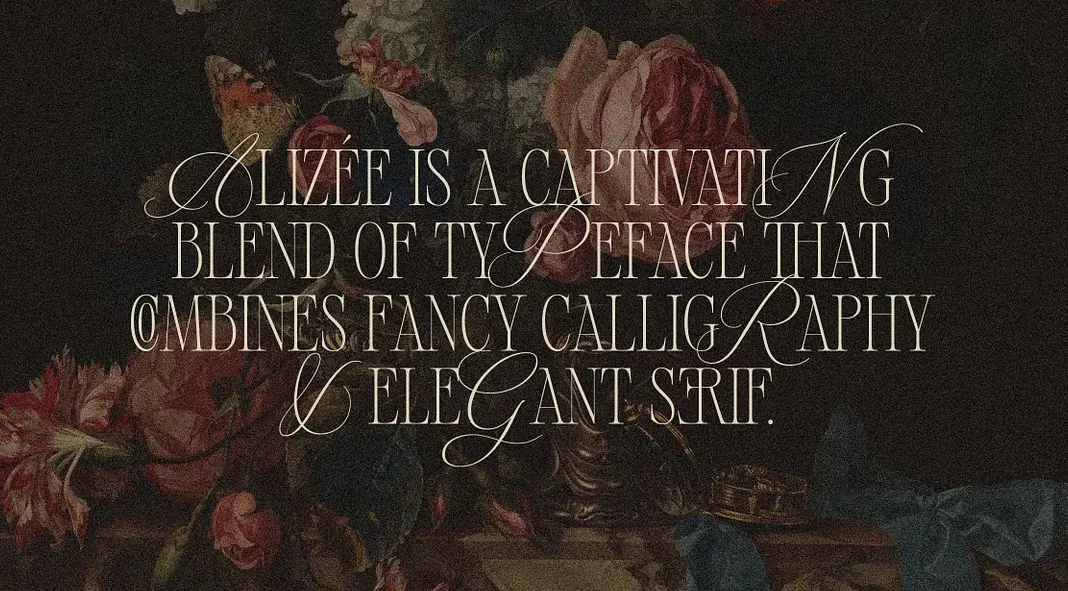
Designed and published by Harmonais Visual, the Alizée typeface is an elegant blend of calligraphy and serif design. This elegant hybrid typeface channels vintage aesthetics with a modern twist, making it an outstanding choice for designers seeking sophistication and versatility. With its striking fusion of classic and contemporary elements, Alizée brings a distinctive charm to branding, editorial layouts, and social media content.
A Perfect Balance of Style and Functionality
Alizée stands out for its duality—it marries the fluidity of calligraphic strokes with the structure of serif typography. This combination allows it to be both expressive and highly readable. Whether it’s used for elegant headlines, luxurious branding, or visually rich menus, the typeface adapts effortlessly to various creative contexts.
Three Unique Styles for Varied Applications
Alizée comes in three carefully curated styles: Regular, Petite, and Grande, each offering distinct visual dynamics:
- Regular: A classic serif style with timeless appeal, ideal for versatile applications.
- Petite: A unique pairing of calligraphic uppercase letters with serif lowercase, adding a refined yet playful touch to any design.
- Grande: This style combines calligraphic uppercase with uppercase serif letters, delivering bold and dramatic typography suitable for impactful statements.
These stylistic variations provide designers with a robust toolkit to achieve the desired tone, whether subtle or commanding.
Multilingual Support and Ligatures
One of Alizée’s notable strengths lies in its comprehensive language support. It accommodates European languages and Vietnamese, making it a versatile choice for global projects. Additionally, the typeface includes a wealth of ligatures—custom connected letters that enhance its elegance. These ligatures work seamlessly in OpenType-compatible software, such as Adobe Illustrator, where the Glyphs panel enables full creative control.
Technical Details and Usability
Applications: Elevating Design with Sophistication
The versatility of Alizée makes it ideal for numerous design projects:
- Branding: Its luxurious feel enhances logos, packaging, and identity systems.
- Editorial Design: Alizée’s sophisticated appearance elevates magazine layouts and book covers.
- Social Media: The stylish yet legible typeface ensures captivating and shareable visuals.
- Event Materials: Perfect for high-end invitations, menus, and posters.
A Must-Have Typeface for Modern Designers
Alizée by Harmonais Visual is a masterclass in typographic elegance. Its seamless blend of calligraphy and serif elements offers a fresh perspective on vintage-inspired design. With its three versatile styles, robust language support, and beautiful ligatures, Alizée empowers designers to craft visually stunning and polished projects. Whether you’re creating a sophisticated brand identity or an artful editorial piece, Alizée proves to be an indispensable addition to any design arsenal.